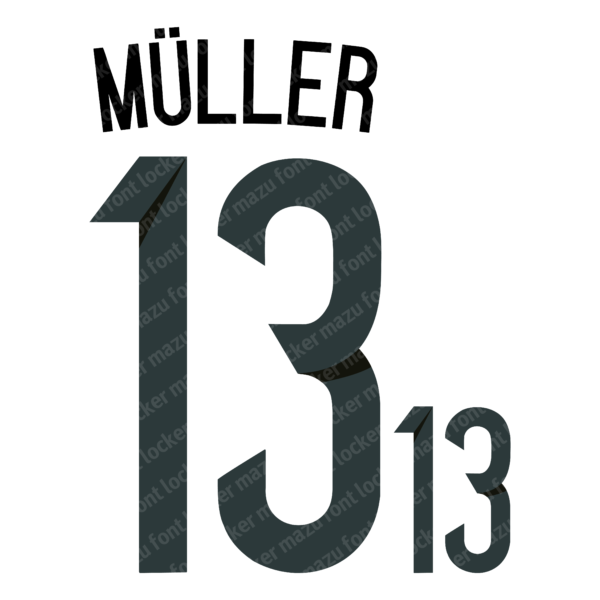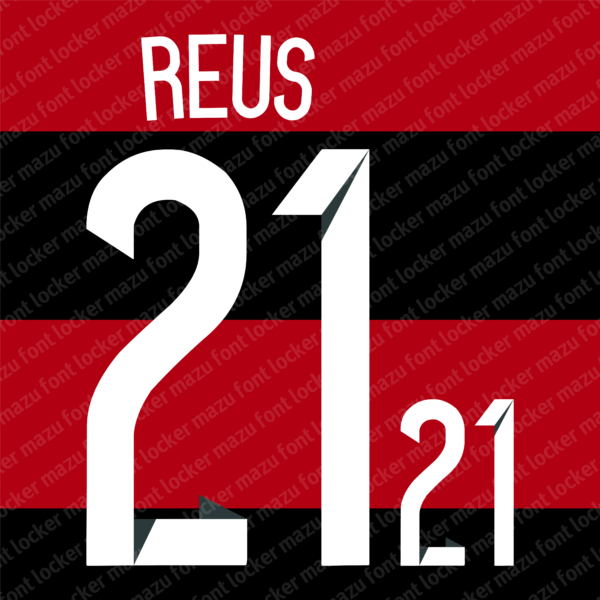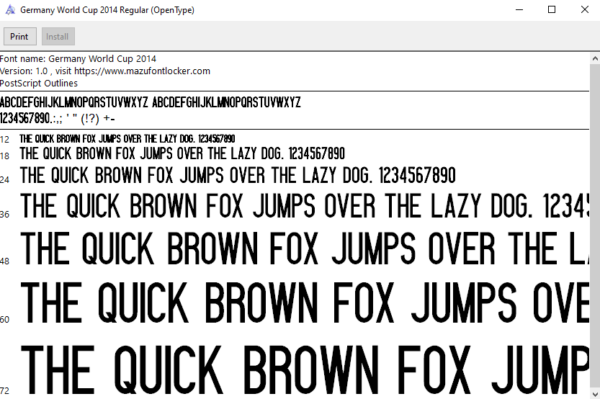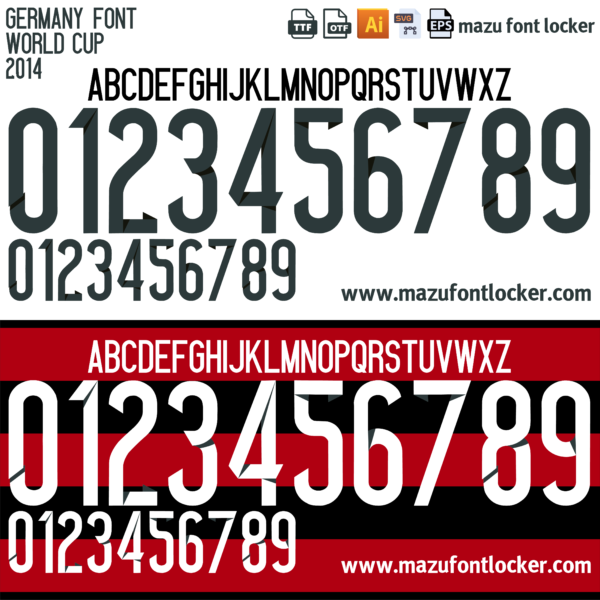
Germany World Cup 2014 Font Vector – Powerful Die Mannschaft Glory
Germany World Cup 2014 Font Vector – Authentic Vintage Jersey Lettering
Germany World Cup 2014 font is a high-quality football jersey font vector created to replicate the official lettering and numbering style used during the iconic World Cup 2014. Perfect for designers, football fans, and jersey customisation projects, this font set delivers an authentic and professional match-day appearance.
Inspired by the original Italy national team kit, every letter and number has been carefully recreated to ensure accurate retro styling for both digital and print projects.
• Authentic Germany 2014 World Cup jersey lettering style
The authentic lettering style helps recreate the classic look of the Germany World Cup 2014 kit with professional accuracy.
Unlike generic jersey fonts, this set is designed with a strong focus on authenticity and accuracy. Every detail is based on the original match lettering style used during the World Cup 2014, helping designers and collectors create realistic football shirt designs.
This Germany World Cup 2014 font vector set is designed for authentic football jersey customization and works perfectly for retro football projects, collector designs, and professional sportswear artwork.
Germany World Cup 2014 font is a high-quality vector recreation of the classic jersey lettering and numbering style used during the English Premier League match.
Complete design with the Germany World Cup 2014 numbering and lettering for World Cup 2014 Match.